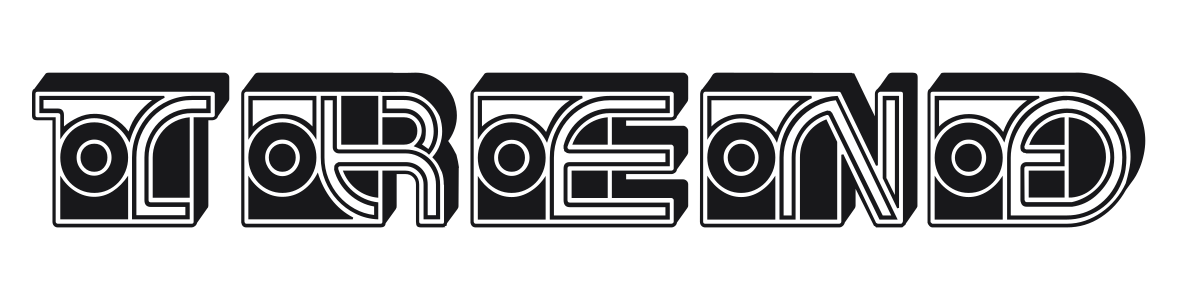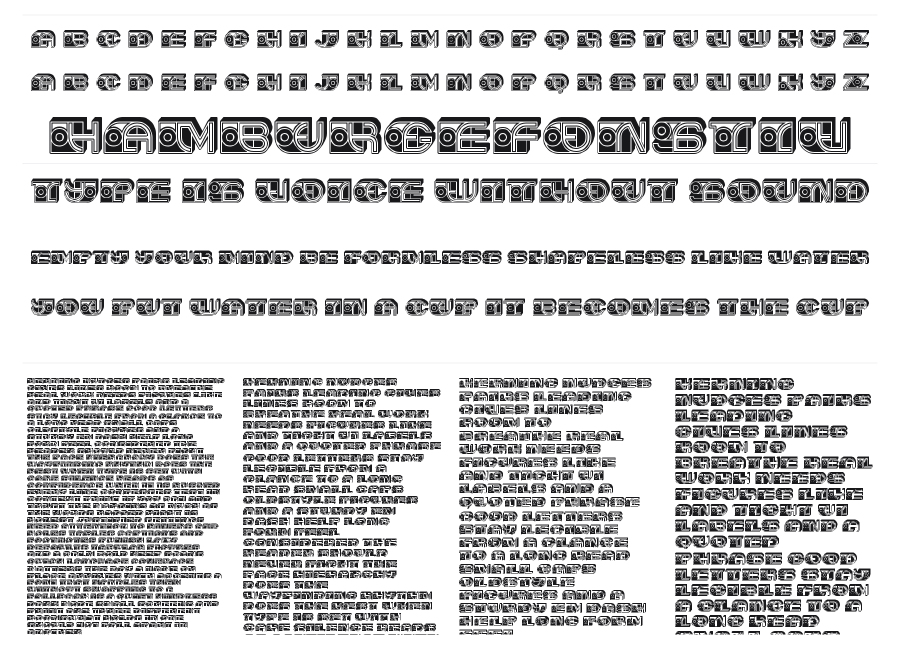
Trend
Trend is a bold, rounded display font packed with decorative layered detailing and circular dot accents at every joint. The multi-outline inline structure gives each character a dimensional, almost emblem-like quality rooted in 1970s retro-futurism and Art Deco geometry. It thrives at large sizes where all that ornamental complexity can breathe.